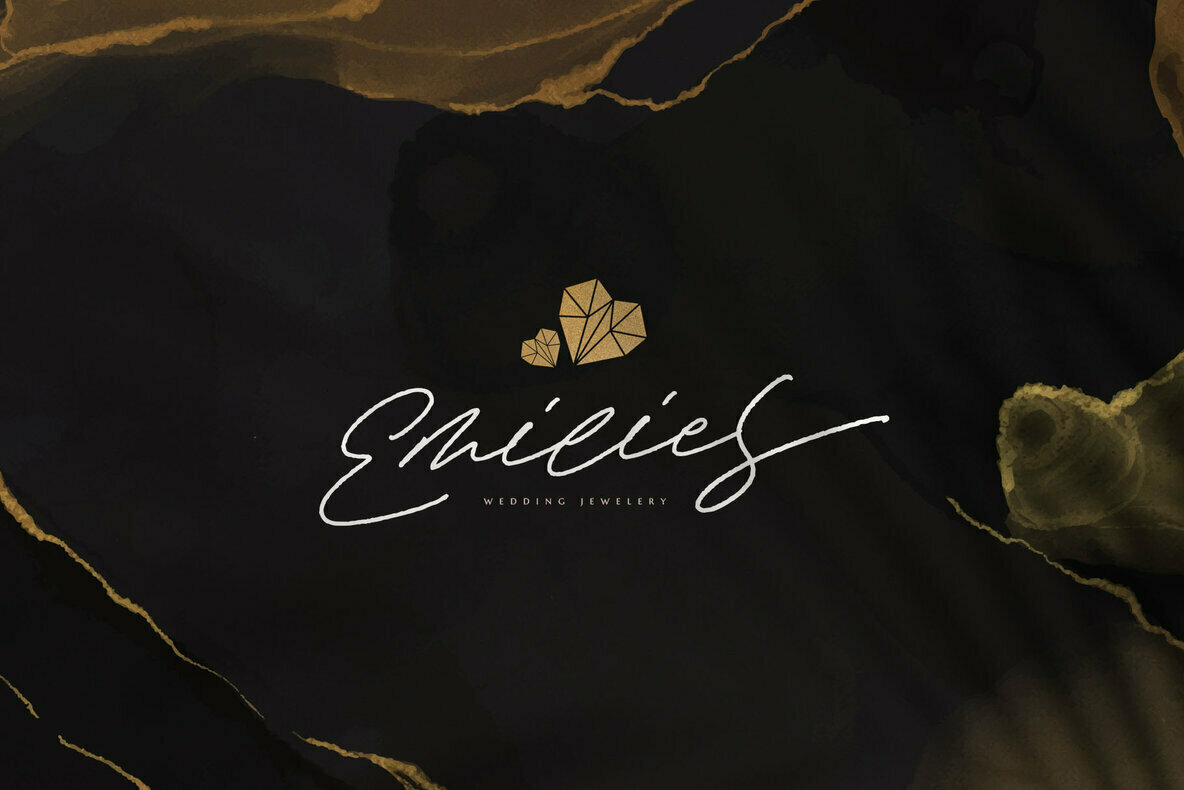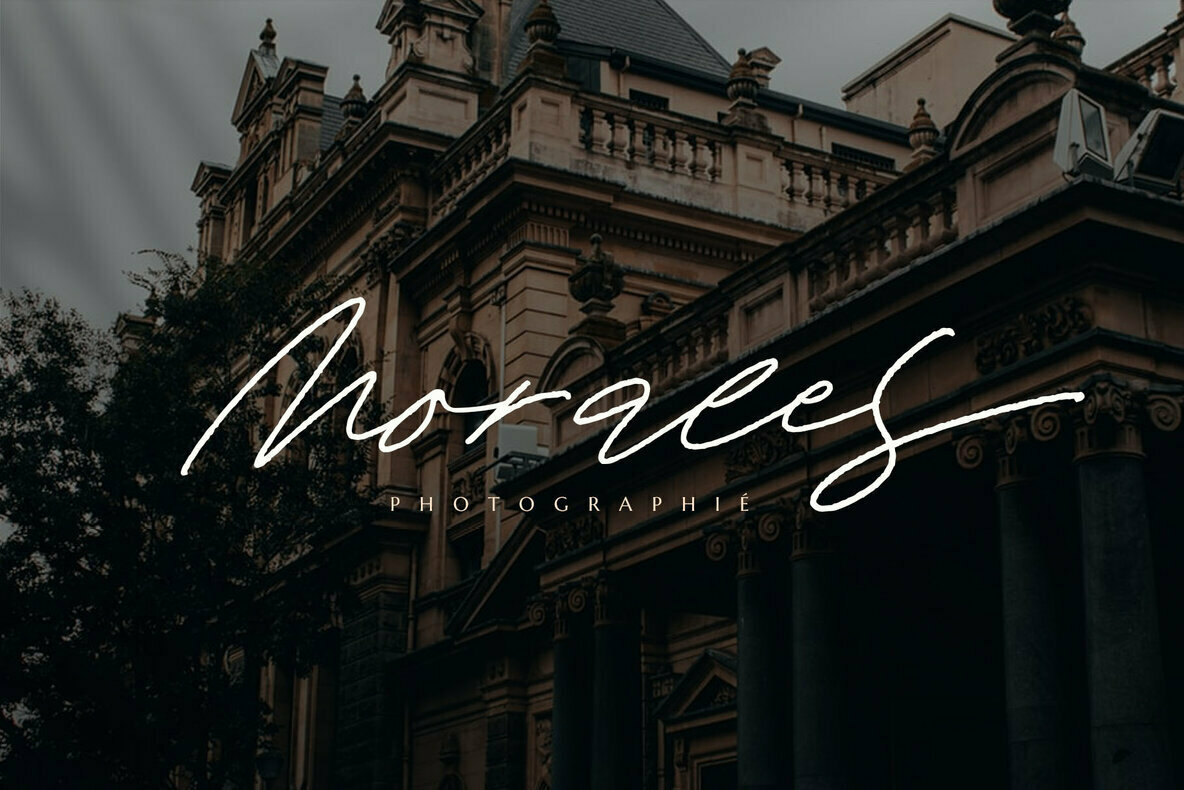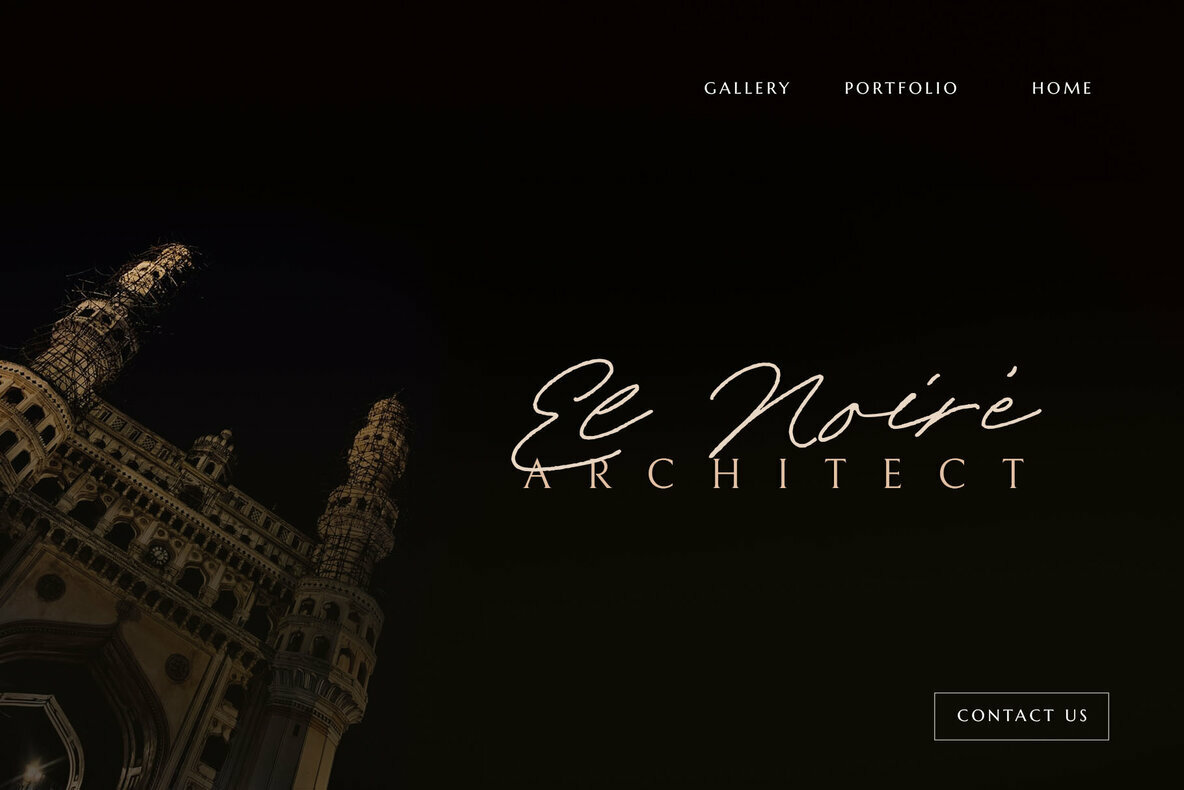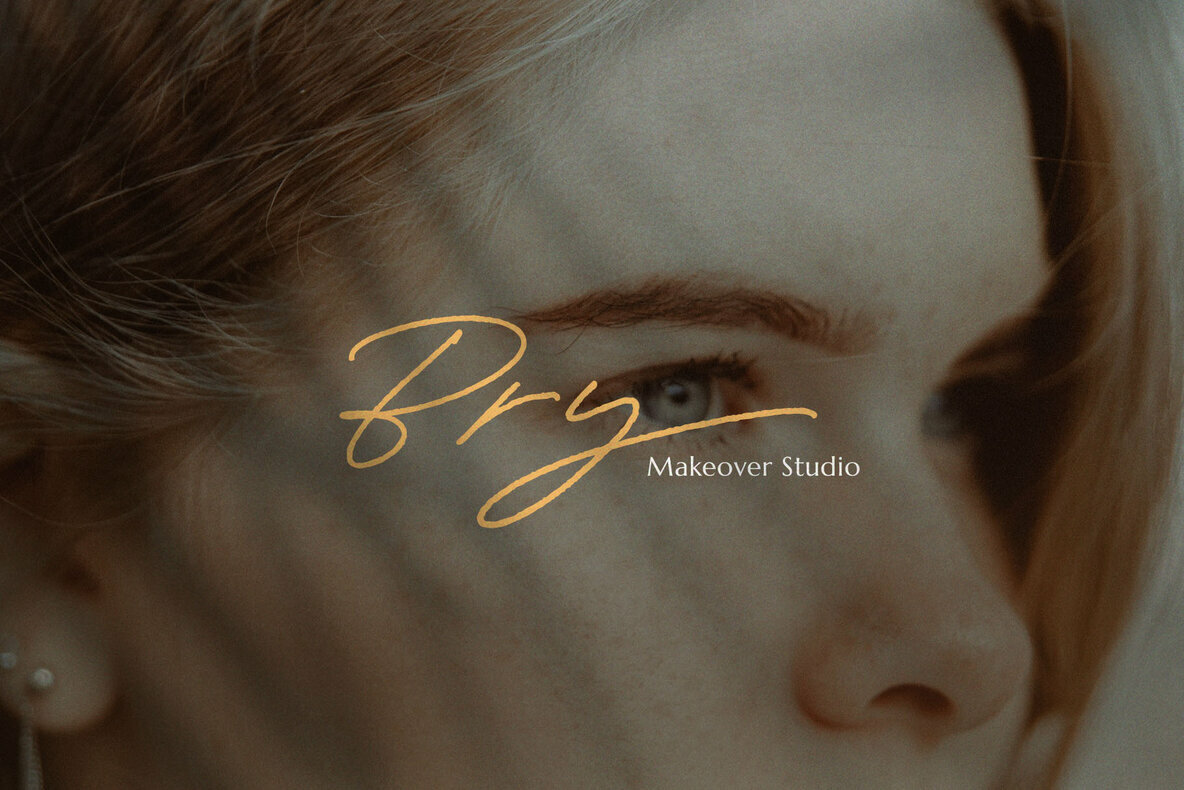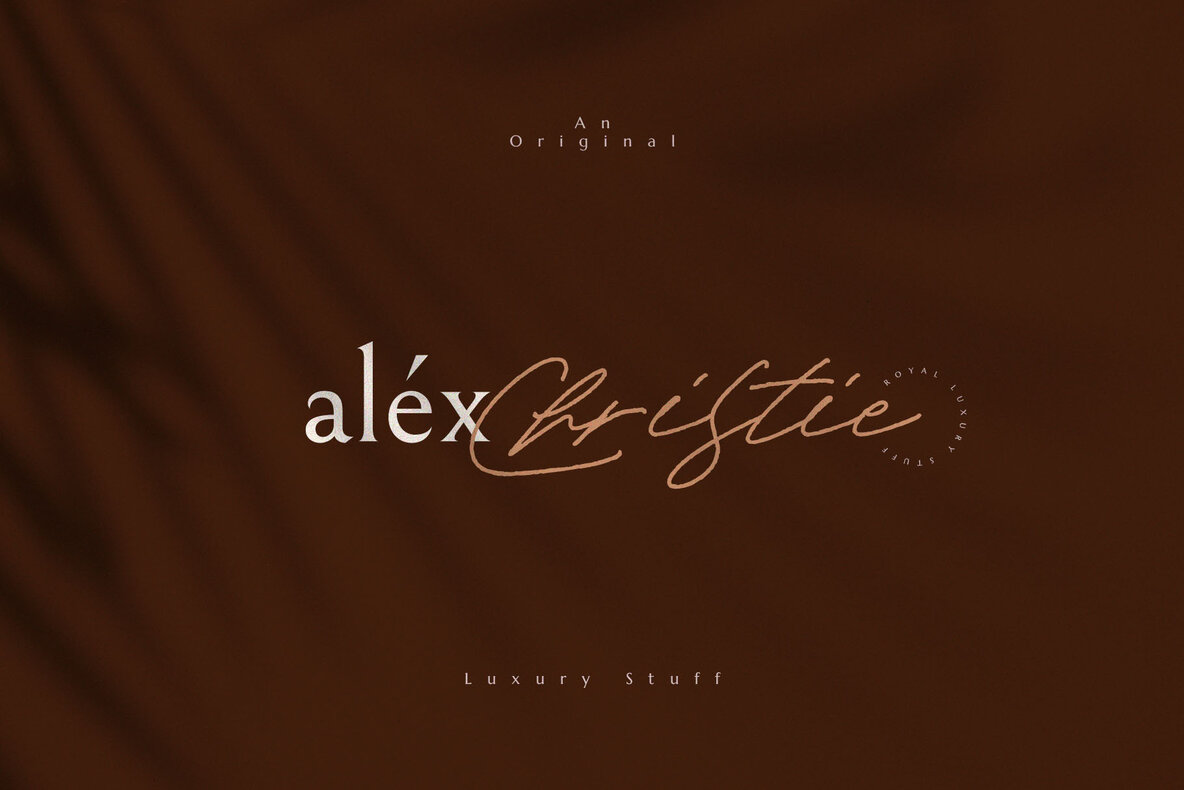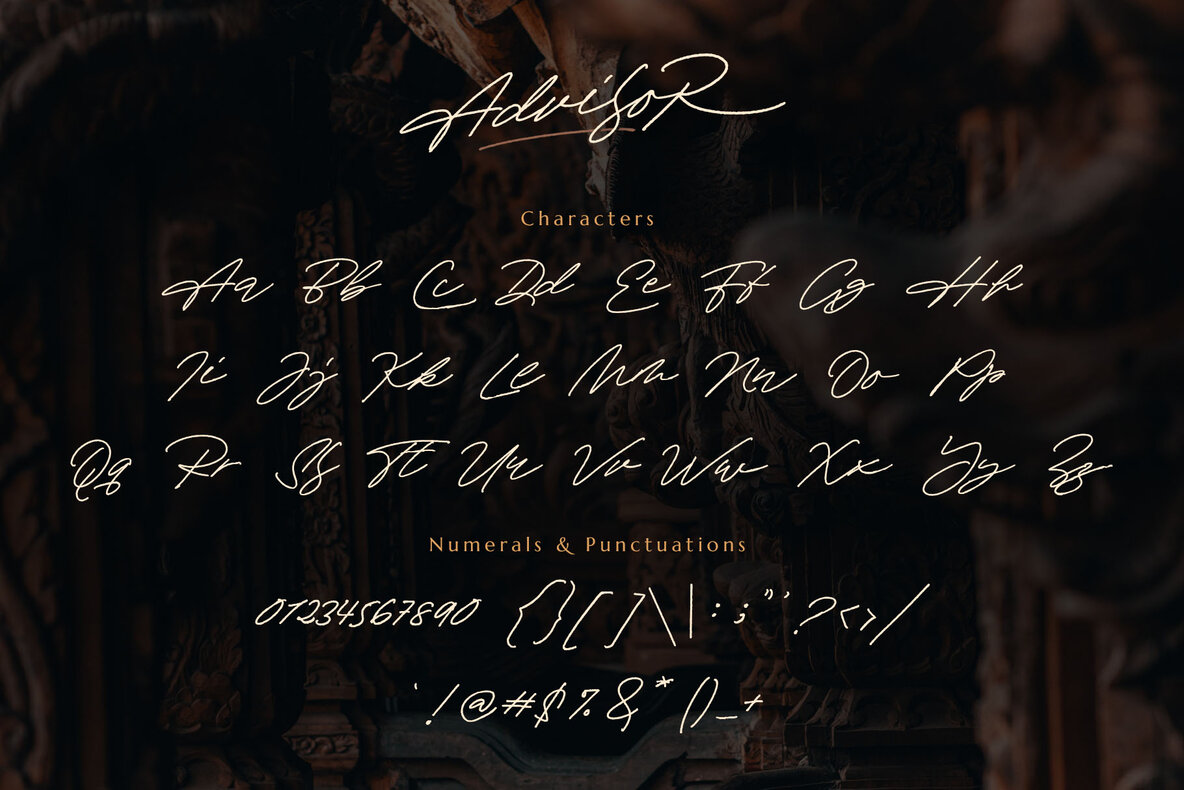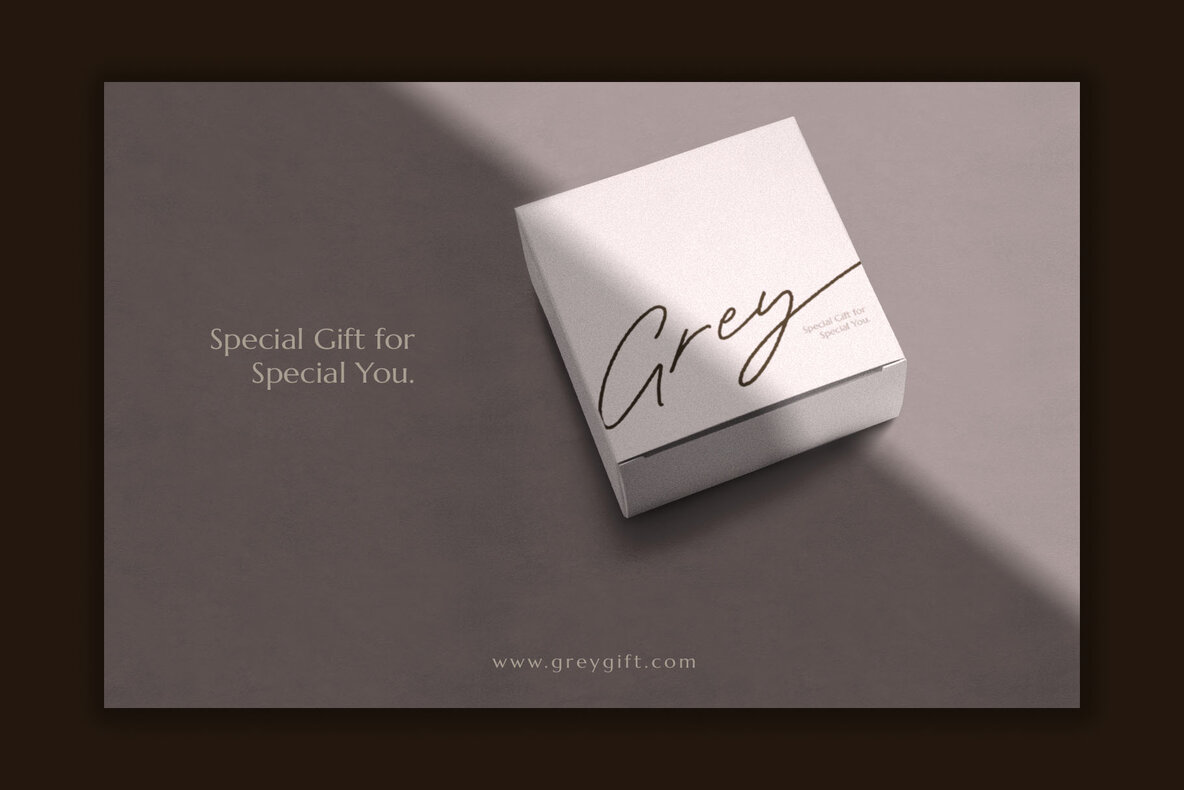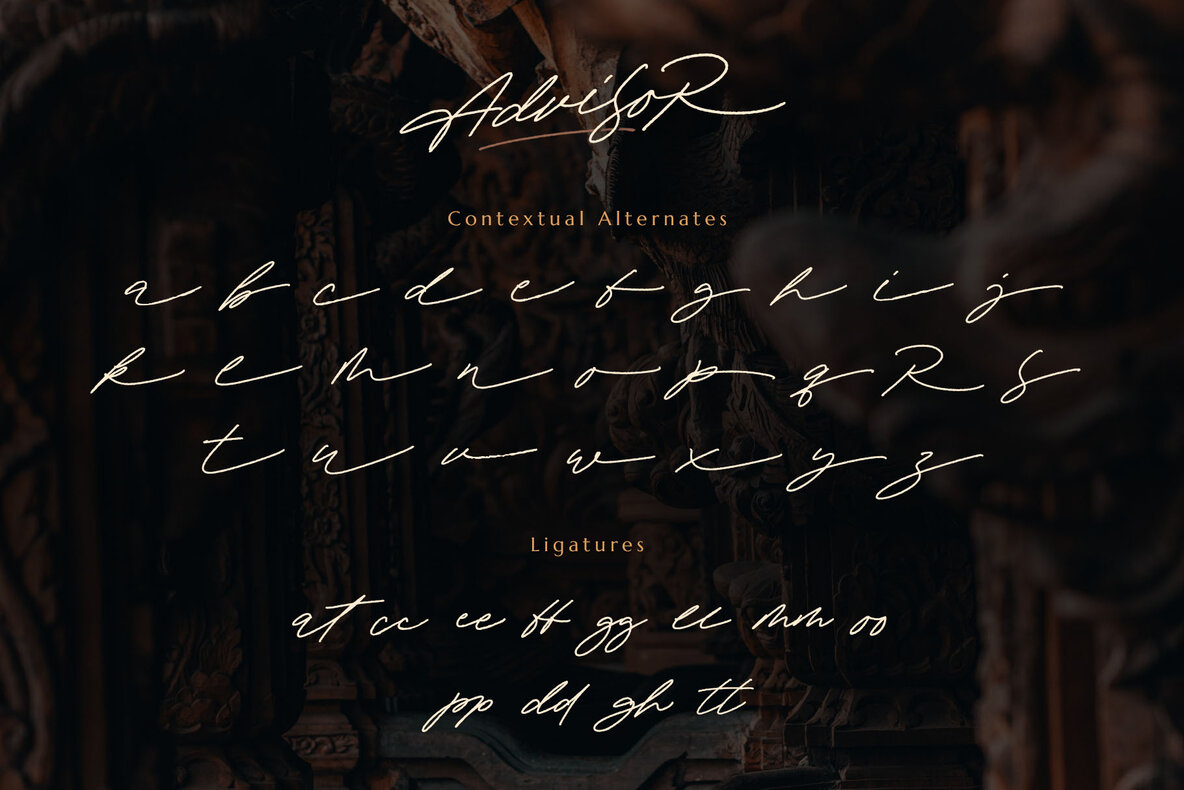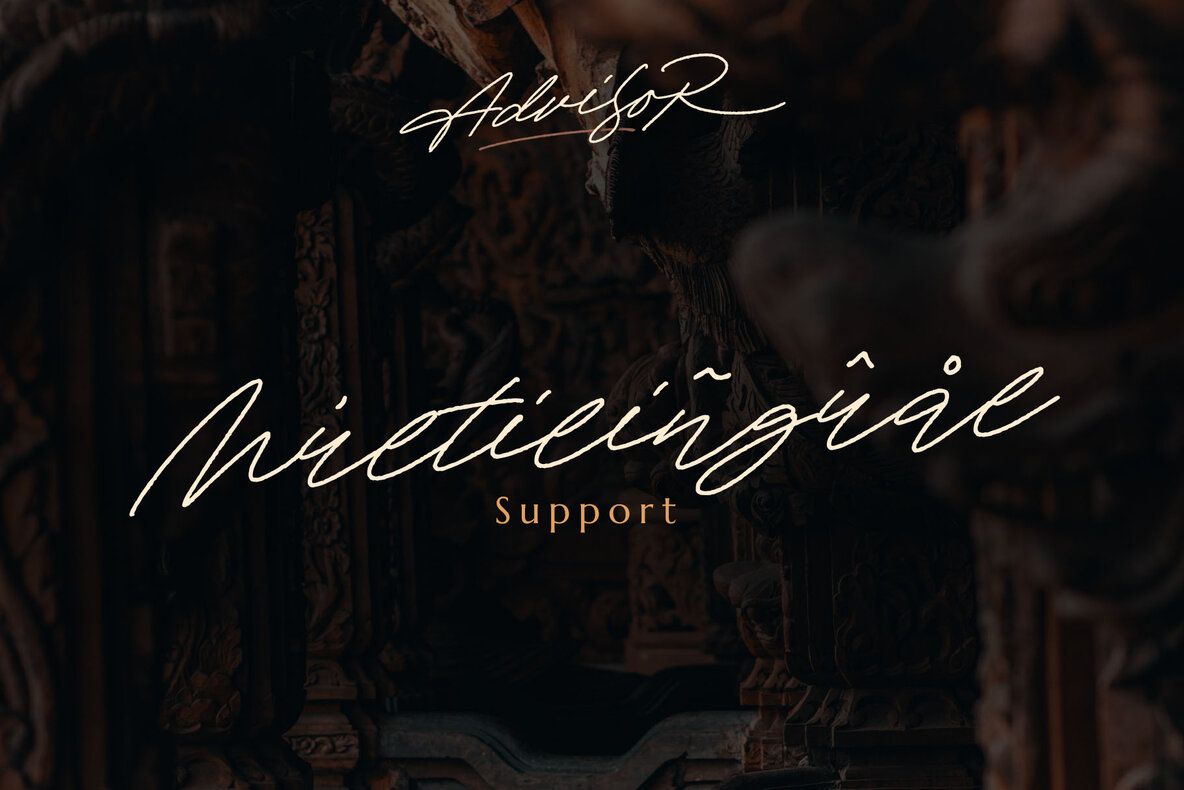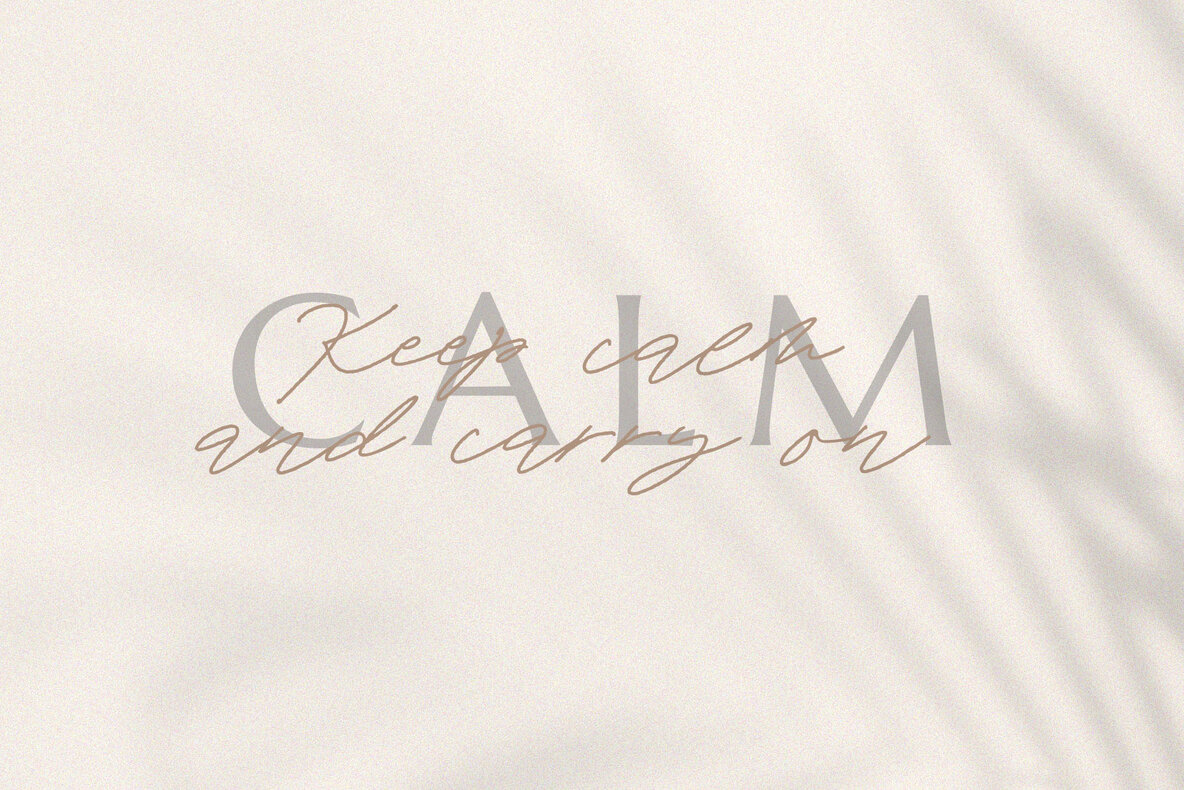
Advisor Font
Advisor Regular
Advisor offers a distinct handwritten script that captures an organic and natural aesthetic. Ideal for projects that embrace authenticity and warmth, it serves as an elegant choice for logotypes, signatures, and labels, infusing a classy touch into your designs. This font's modern yet timeless appeal makes it versatile across various applications. Whether designing photo watermarks, wedding invitations, or editorial titles, Advisor adapts effortlessly. Its refined style can enhance display work, logos, and social media graphics, while also lending charm to packaging and greeting cards.Advisor: Handwritten Script for Organic Elegance